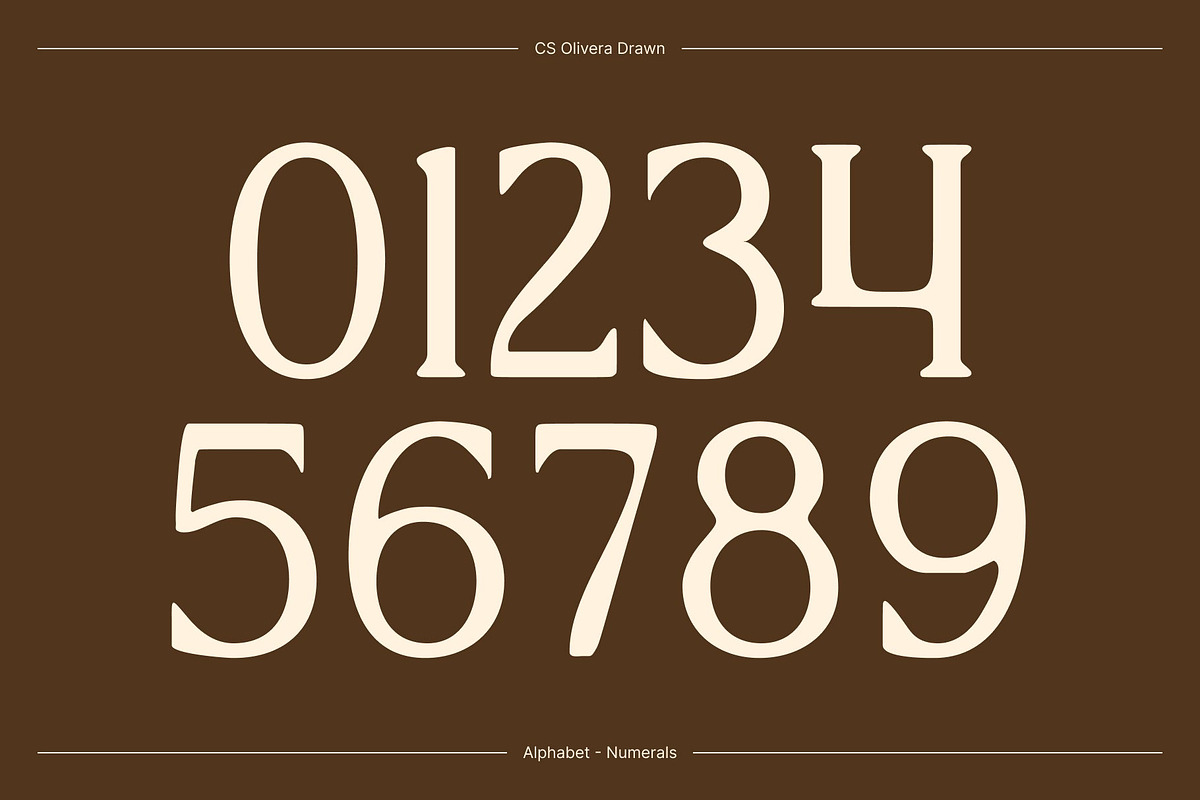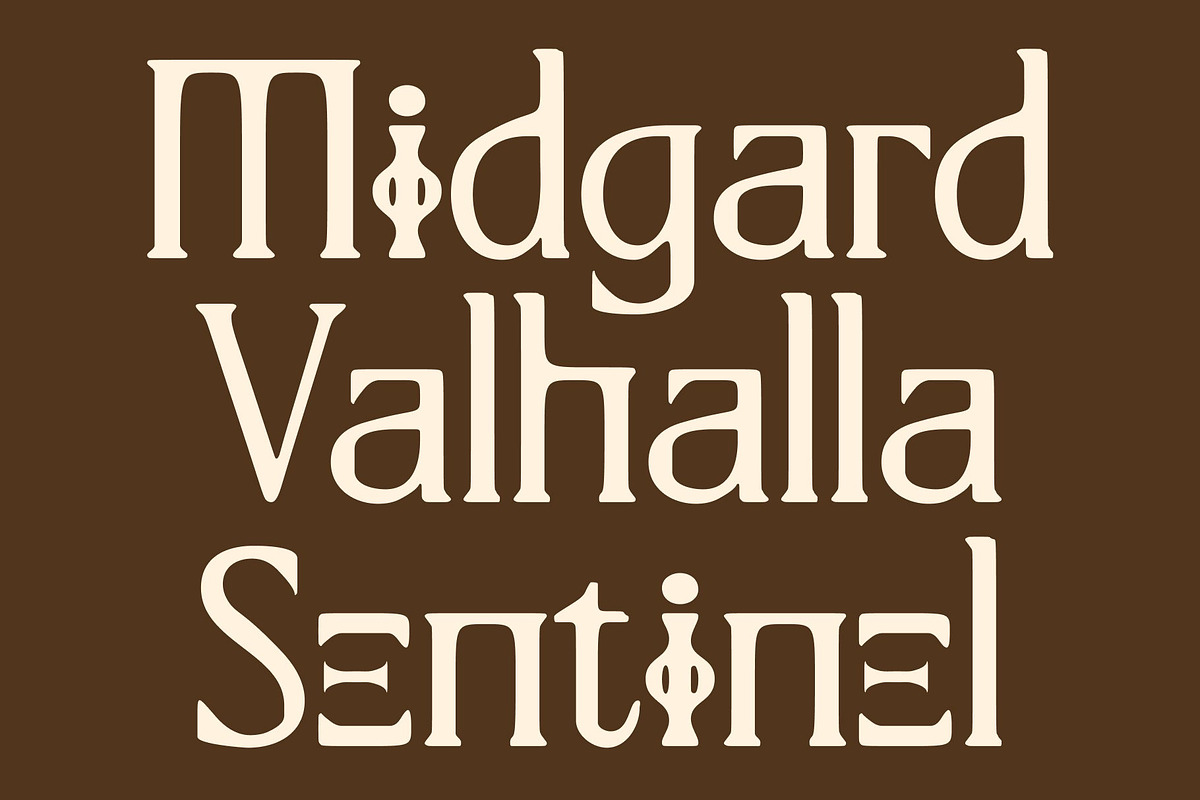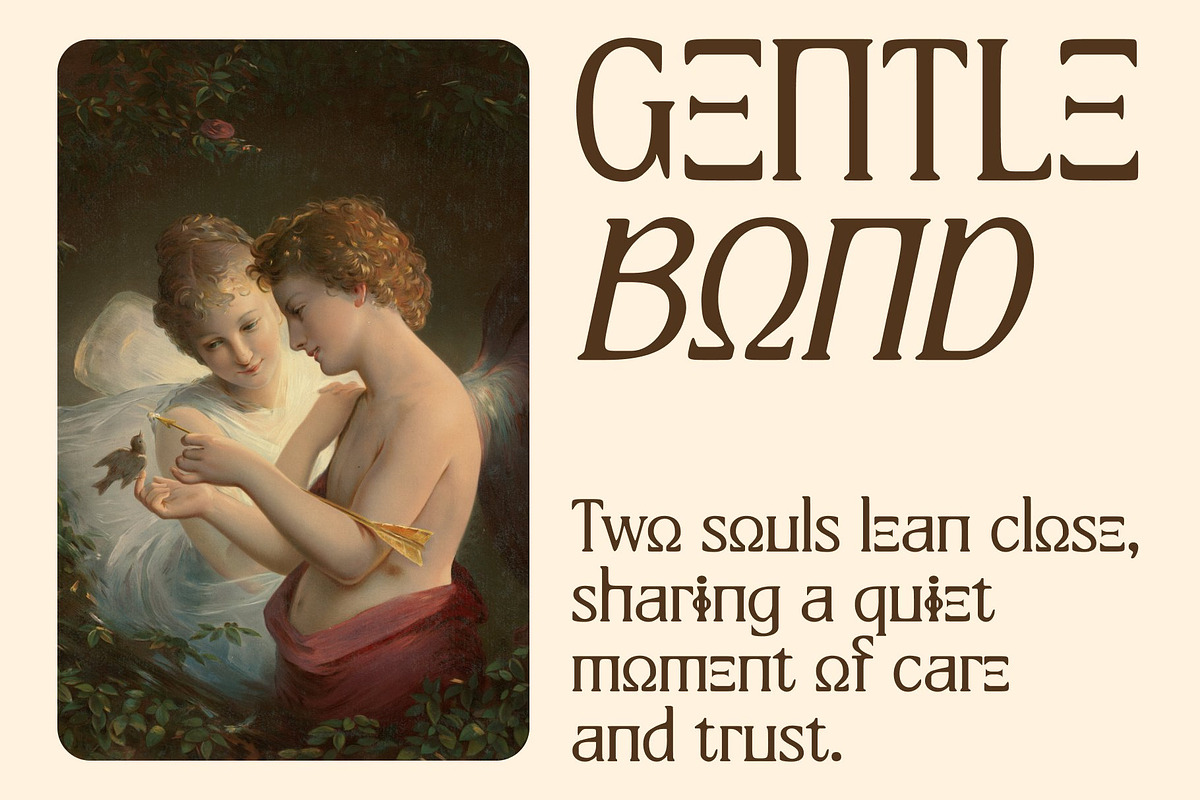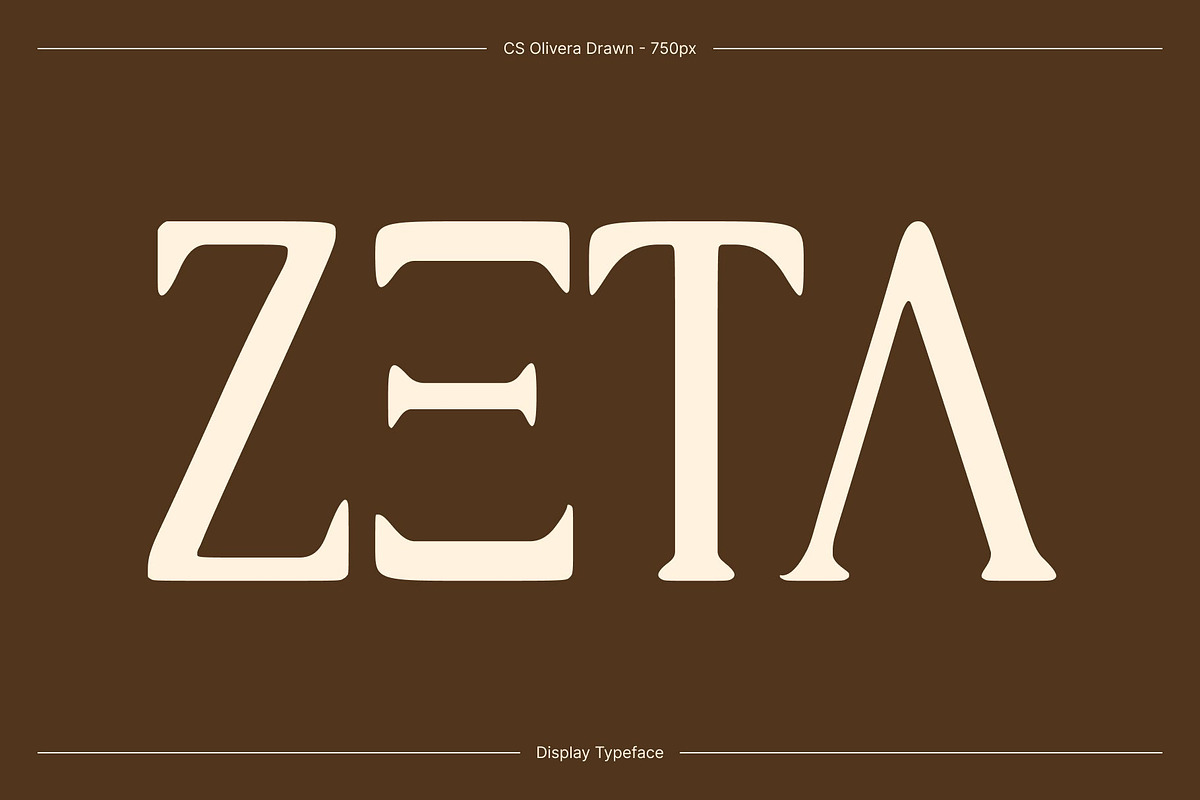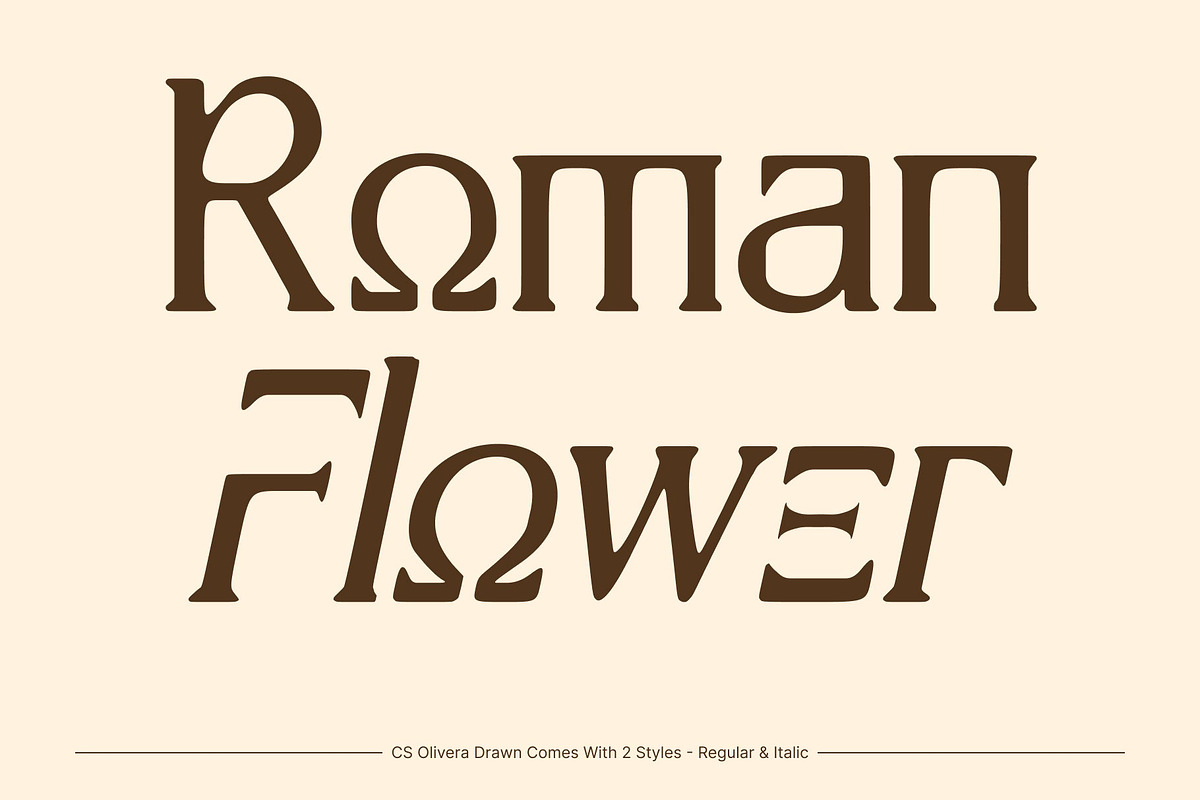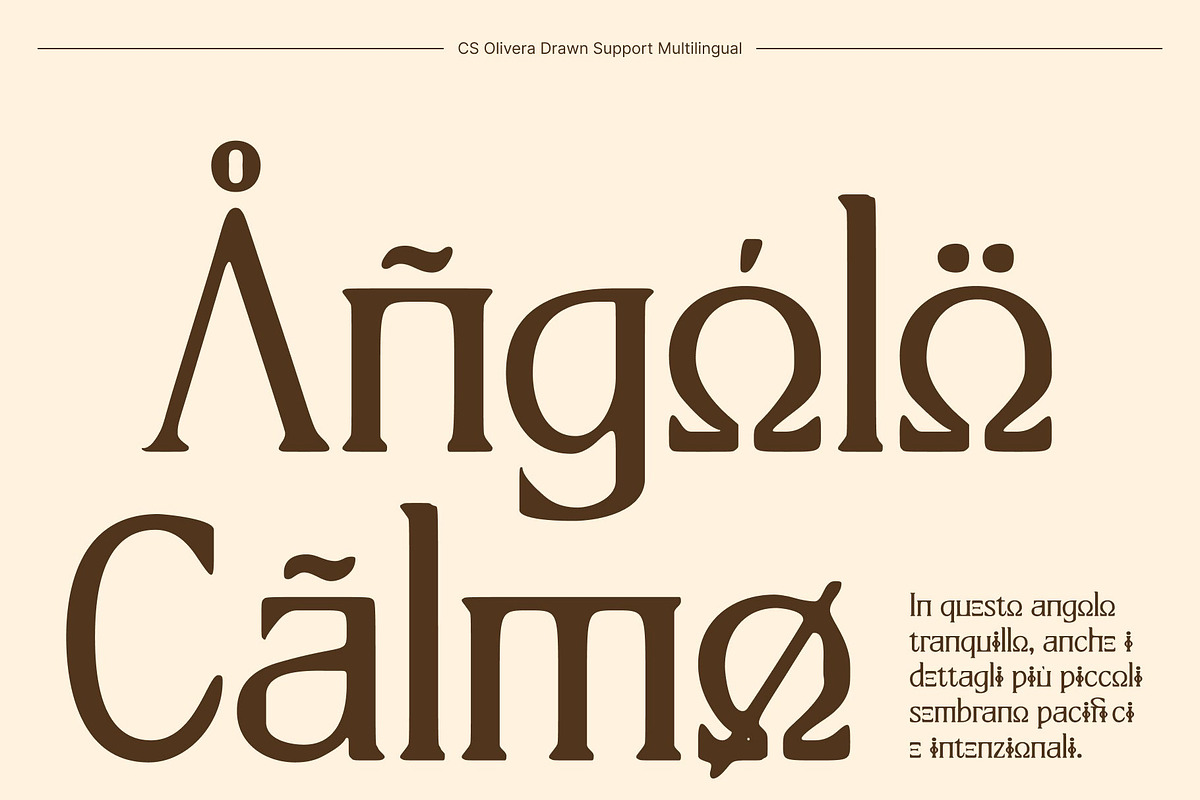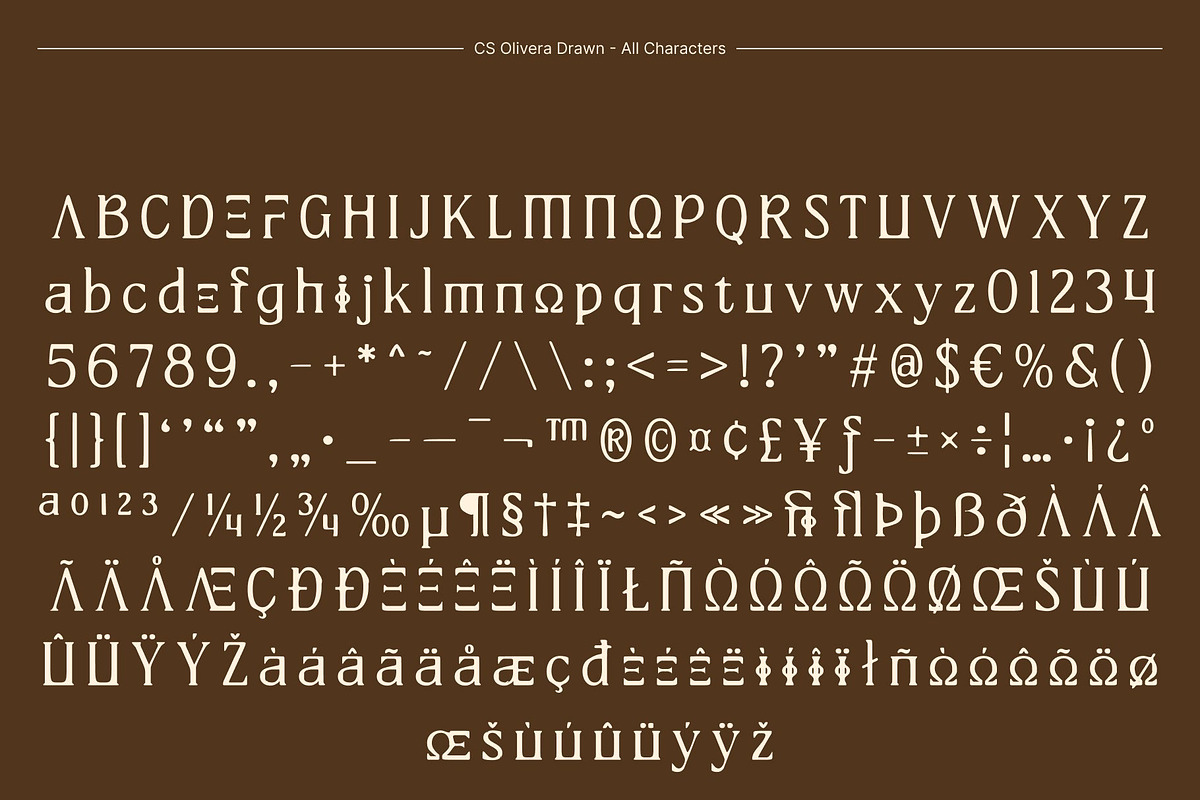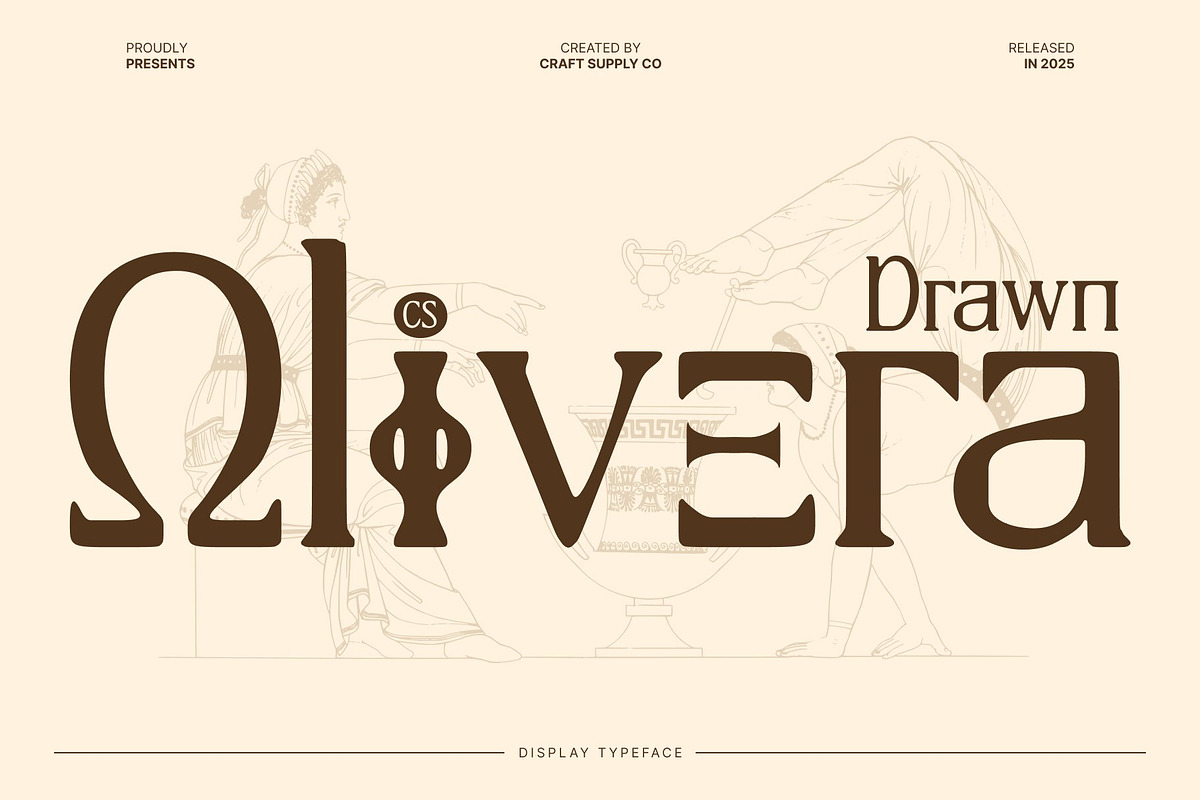
CS Olivera Drawn
CS Olivera Drawn – Greek-Inspired Serif with Timeless Elegance
Ancient Heritage, Modern Design This is a modern classic serif display font inspired by the refined letterforms of ancient Greek inscriptions. Its elegant serifs and structured shapes capture the grace and precision of historical designs, while the hand-drawn texture adds subtle, organic imperfections that give each character a unique, handcrafted feel. This combination brings a perfect balance of tradition and contemporary style to any design project.
Expressive and Professional Harmonizing classical sophistication with modern clarity, this font is both professional and expressive. Each character carries historical nuances, yet is refined for readability and versatility. The drawn effect introduces a tactile, artistic quality that sets this font apart, adding personality and depth to your designs.
Ideal for Sophisticated Projects This font excels in projects that demand elegance and cultural richness. Perfect for editorial layouts, luxury branding, book covers, posters, and creative works, it communicates authority, refinement, and sophistication. Its distinctive combination of historical inspiration and contemporary form ensures designs feel both timeless and relevant.
Versatile and Timeless Suitable for both print and digital media, conveys timeless sophistication in any application. Its structured forms, classical influence, and handcrafted character provide a font that is professional, artistic, and full of personality a typeface that honors tradition while embracing modern design sensibilities.
- CS Olivera Drawn Regular
- CS Olivera Drawn Italic